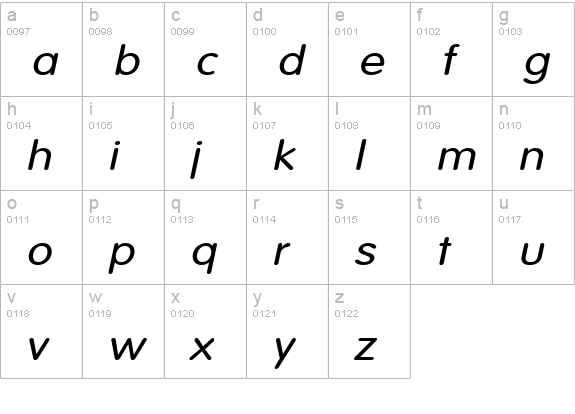
Vogel Wide Italic Font Details
Vogel Wide Italic is a distinctive, extended-width, italic variant in the Vogel typeface family \xE2\x80\x94 well suited to design and typography projects.
Vogel Wide Italic font is a stunning typeface that effortlessly combines elegance with modernity. Its beautifully crafted letterforms feature delicately slanted italics, adding a touch of sophistication to any design project. With its wide proportions and graceful curves, Vogel Wide Italic font is perfect for creating eye-catching headlines, logo designs, invitations, and branding materials. The flowing nature of this font exudes a sense of movement and style, making it an ideal choice for projects that require a dynamic and contemporary look. Not only does Vogel Wide Italic font boast exquisite aesthetics, but it also offers versatility in its usage. Whether it's for print or digital media, this font adapts seamlessly to various platforms, ensuring that your message is conveyed with utmost clarity and impact. What makes Vogel Wide Italic font even more appealing is the fact that it is freely available to download at FontsMarket.com. This means that you can effortlessly access this stunning typeface without any cost. It's a remarkable opportunity to enhance your creative endeavors with a high-quality font that won't break the bank. So, if you're searching for a font that combines elegance, modernity, and the added bonus of being completely free, look no further than Vogel Wide Italic font. Download it today from FontsMarket.com and elevate your designs to new levels of sophistication.